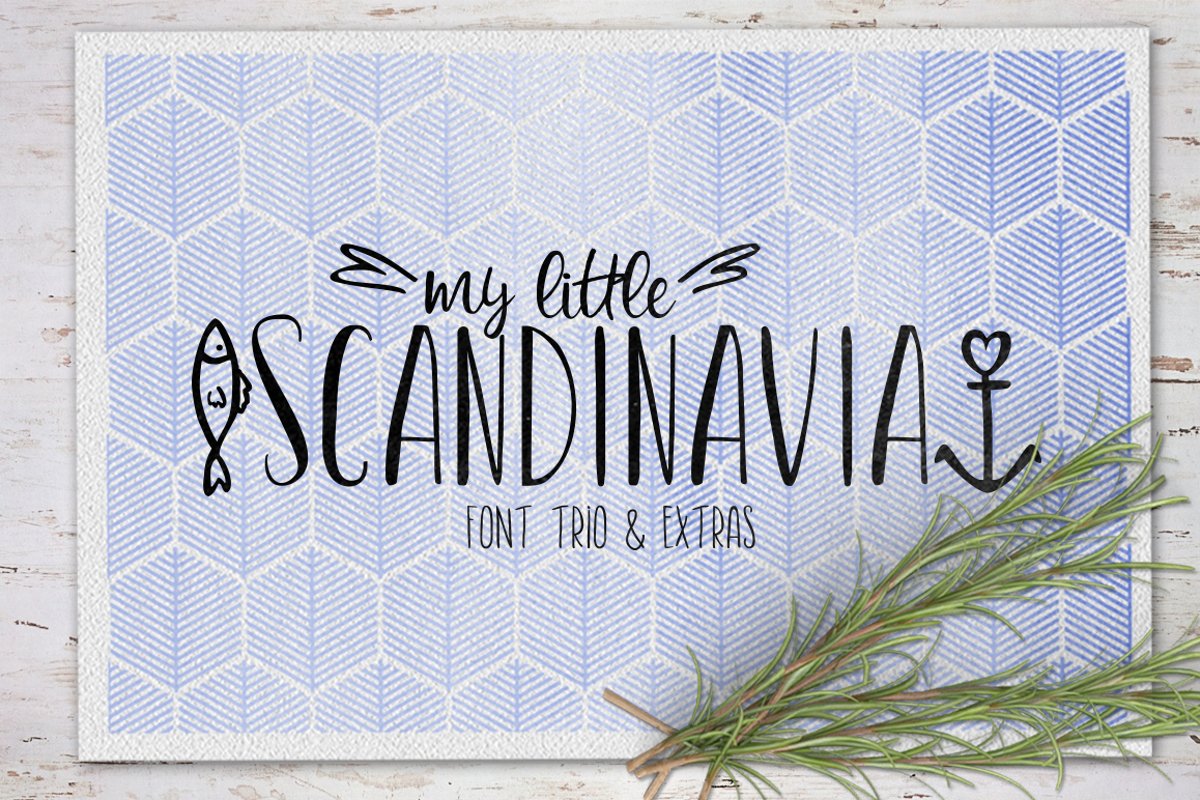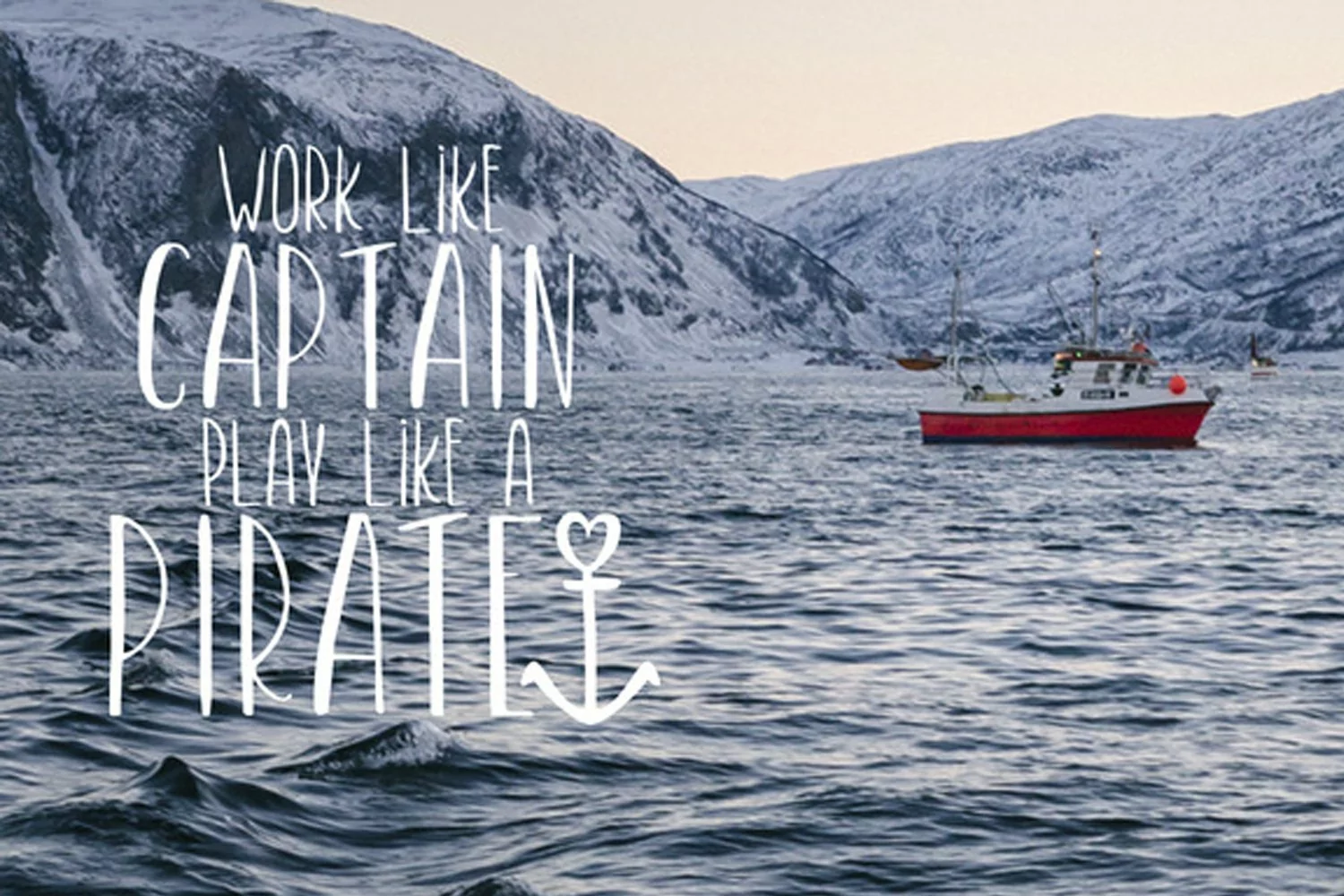
My Little Scandinavia
My Little Scandinavia - it's a handwritten font trio and cute scandinavian illustrations
My little Scandinavia extras includes 26 illustration from a to z